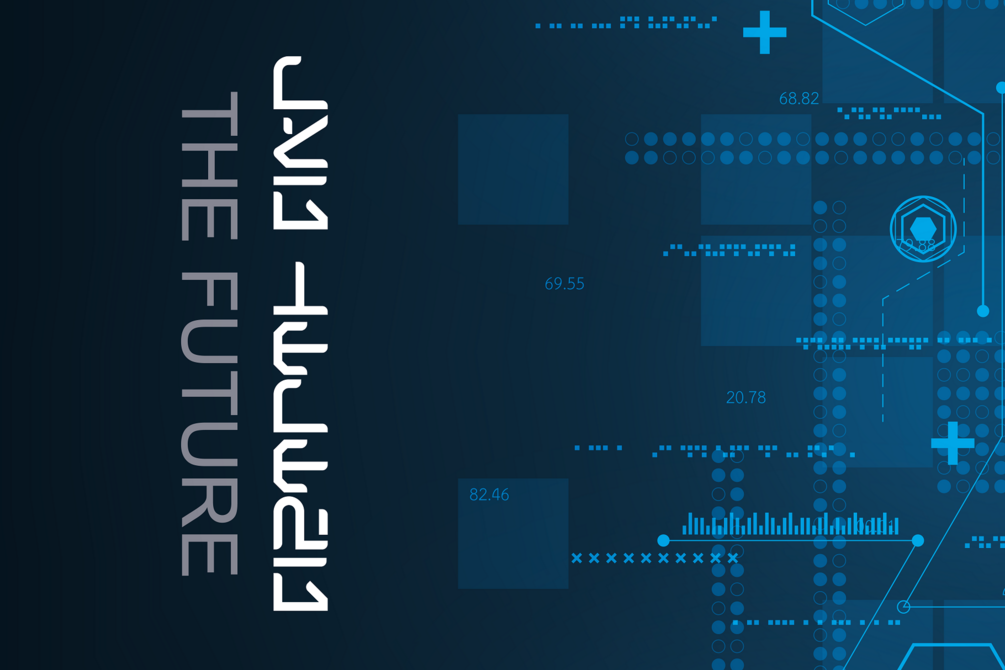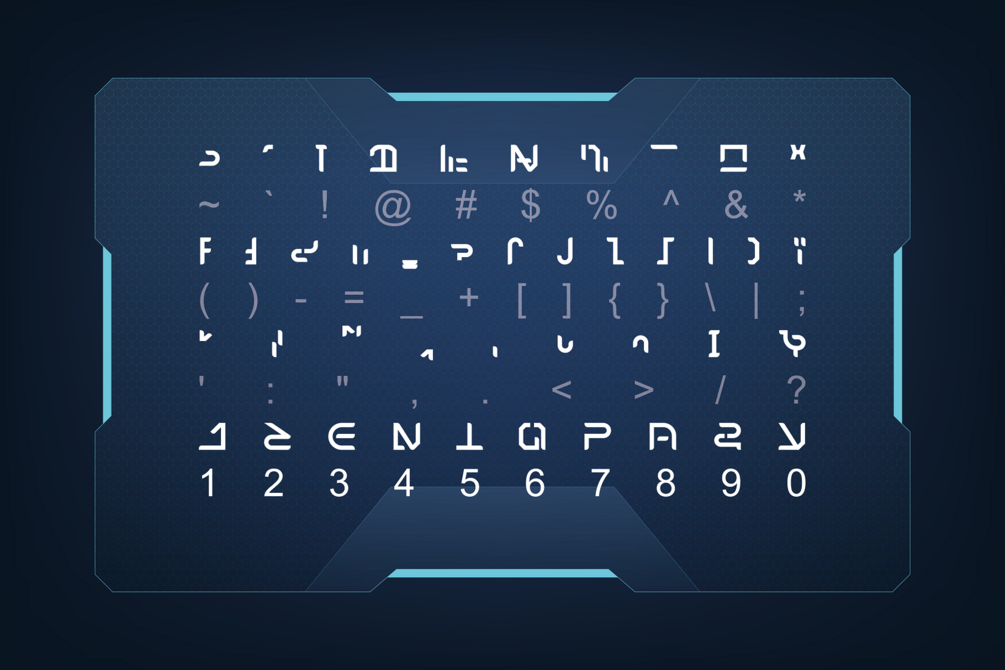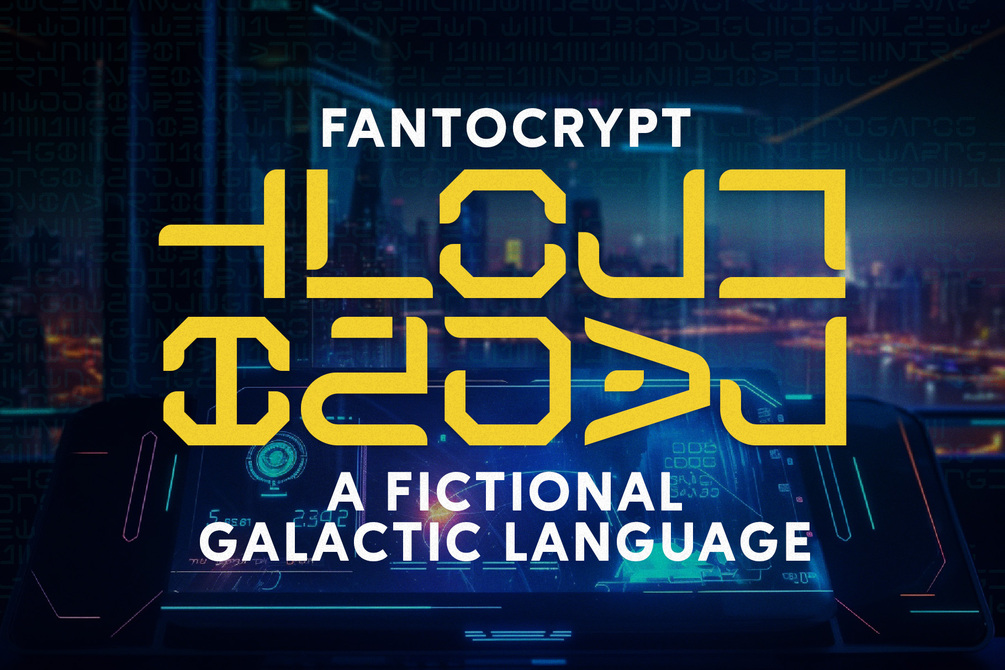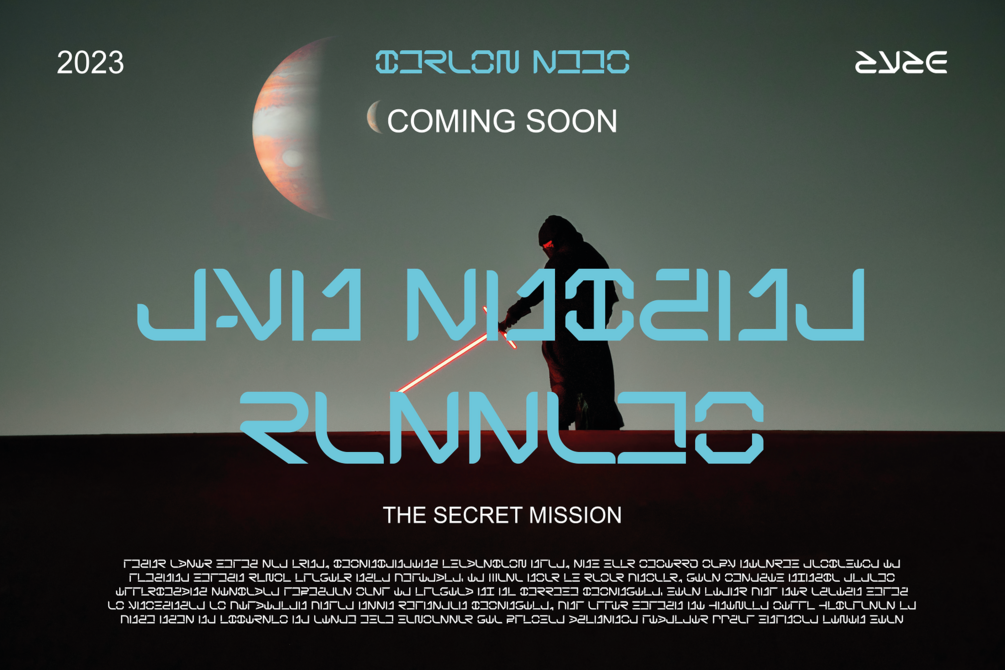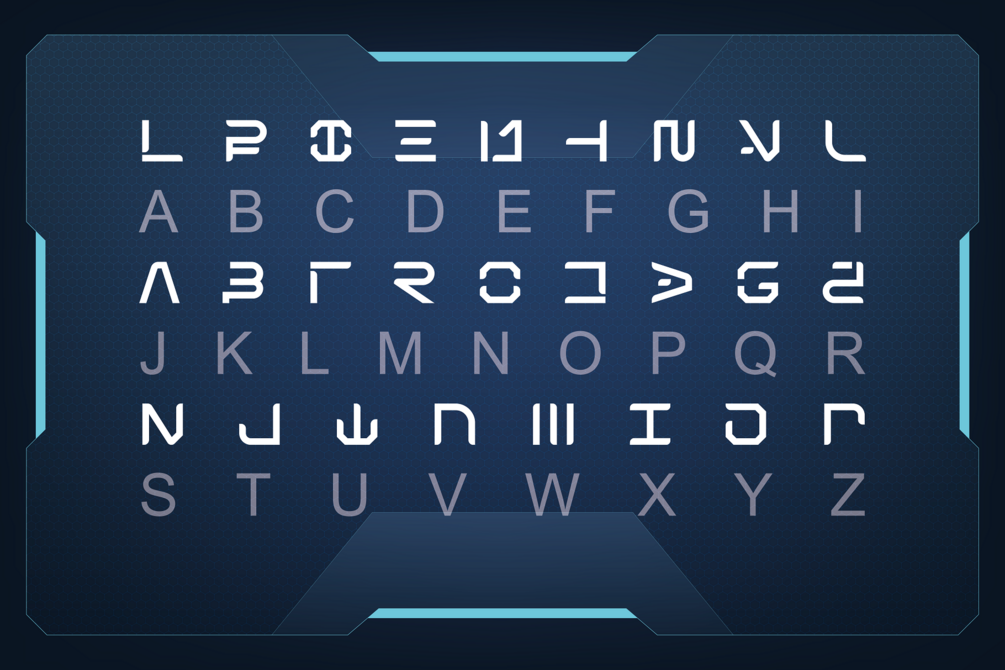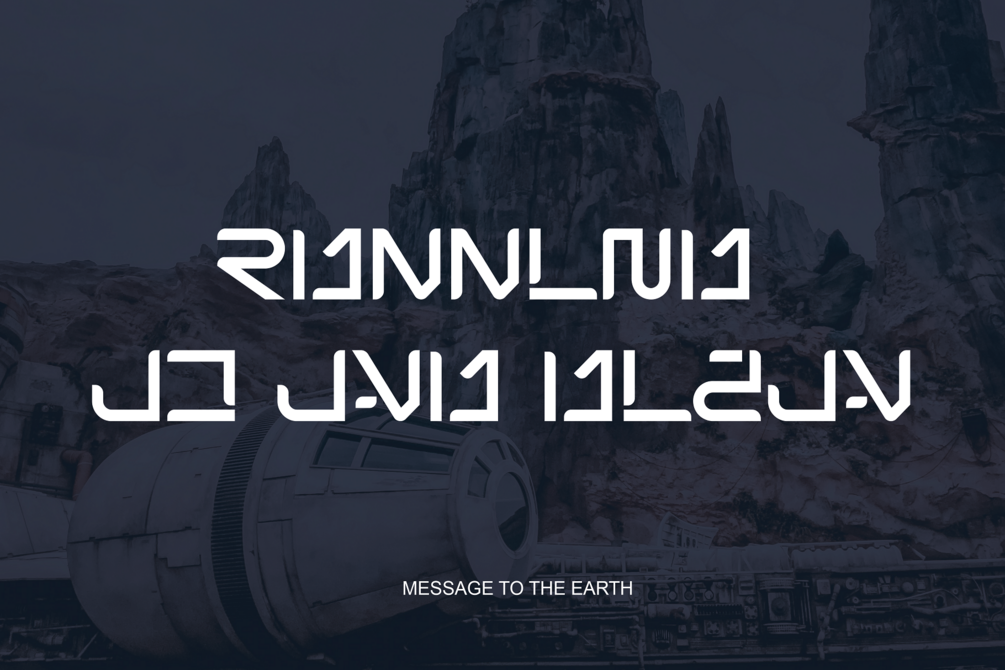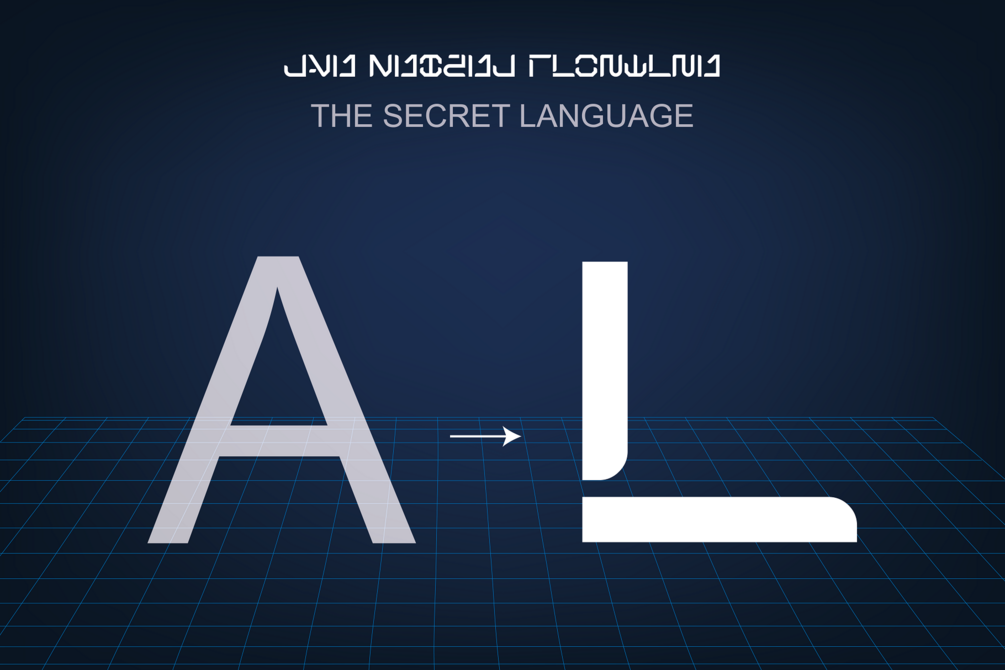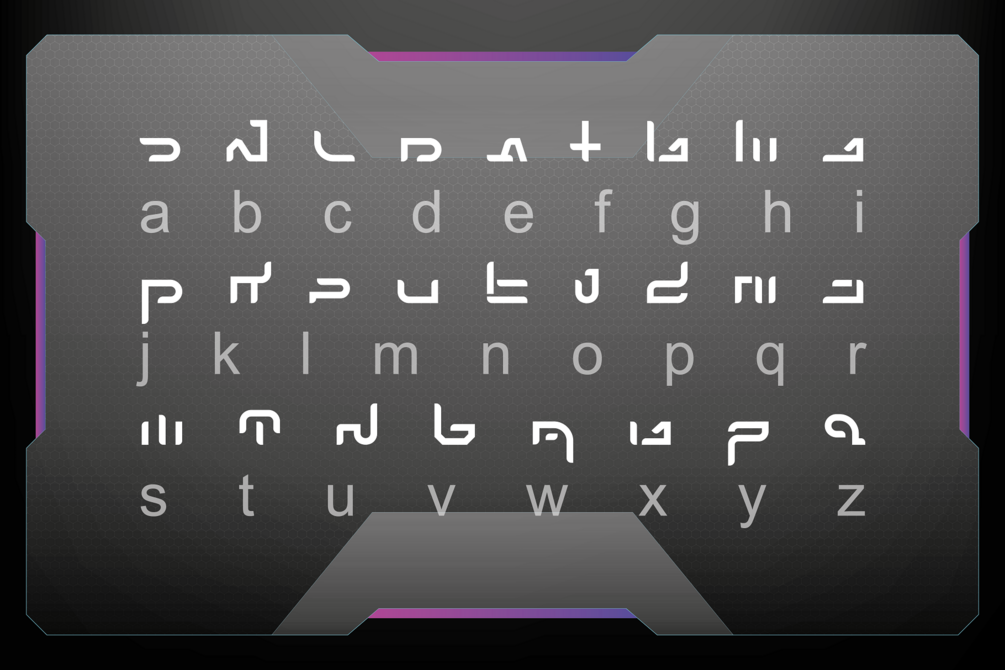
Fantocrypt - Alien Language
Fantocrypt is a mysterious and intriguing font that embodies a secret language system from beyond our planet. This alien alphabet is shrouded in secrecy, and its intricate shapes and symbols are unlike anything seen on Earth. Each letter of the Fantocrypt font is carefully crafted to convey hidden meanings and messages that only the initiated can understand.
The letters of Fantocrypt are intricately interconnected, forming a complex web of meaning and nuance. The curves and angles of each character are perfectly balanced to create a sense of harmony and balance in the overall design. Despite its otherworldly origins, Fantocrypt has a distinctive and unforgettable appearance.
Those who are drawn to the mysterious and unknown will be captivated by the Fantocrypt. Its enigmatic symbols and hidden meanings offer endless possibilities for exploration and discovery. Whether used for science fiction novels, top-secret communications, or just really cool futuristic designs, Fantocrypt is a font that will keep its secrets safe.